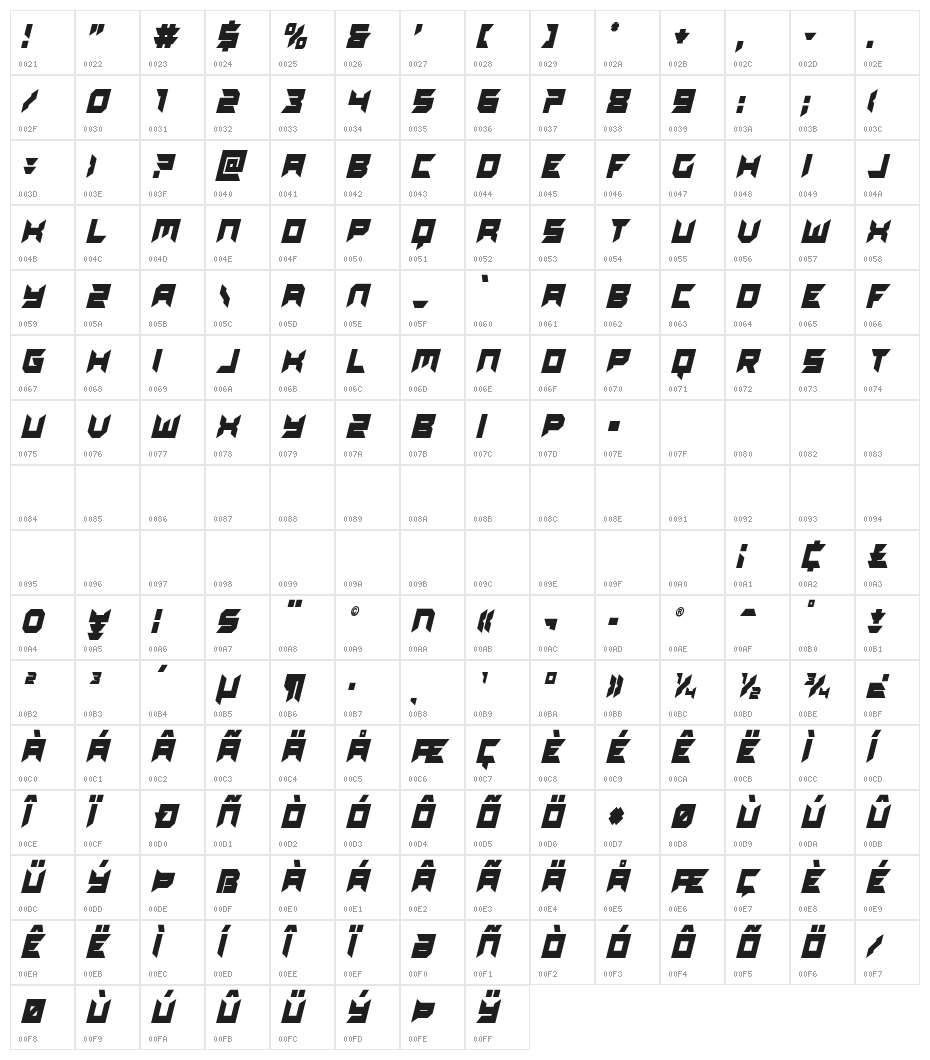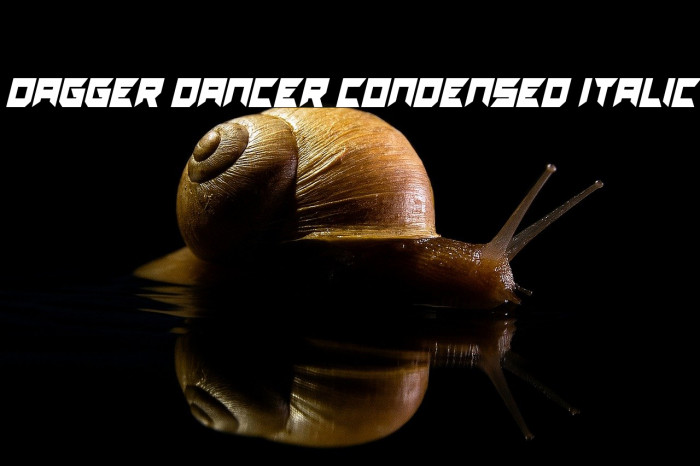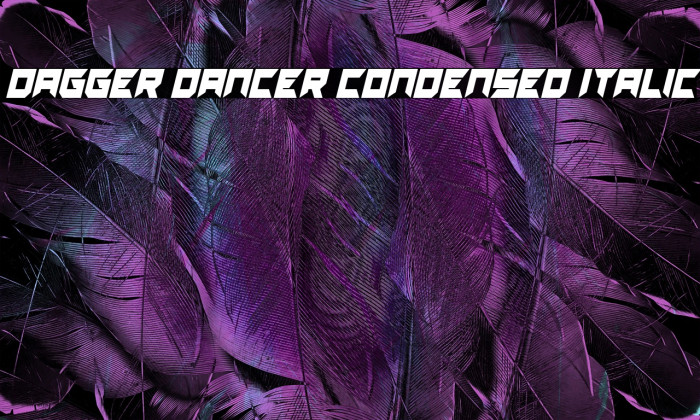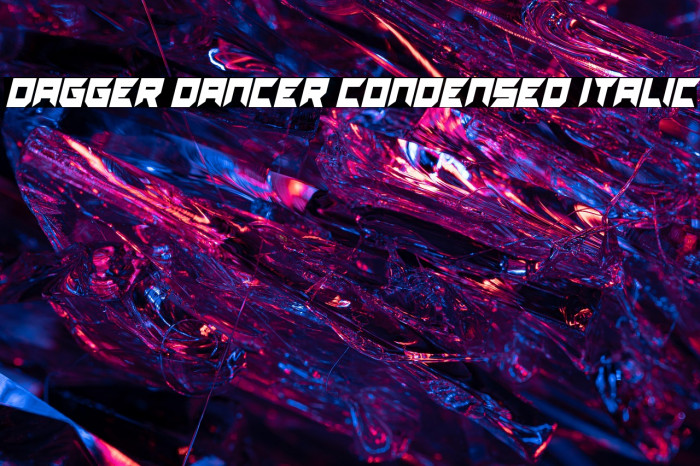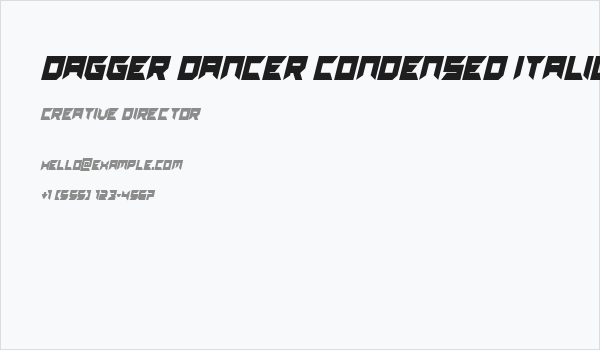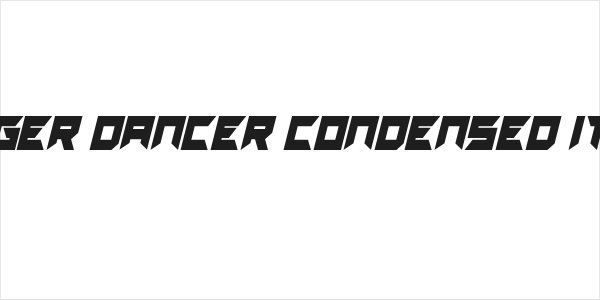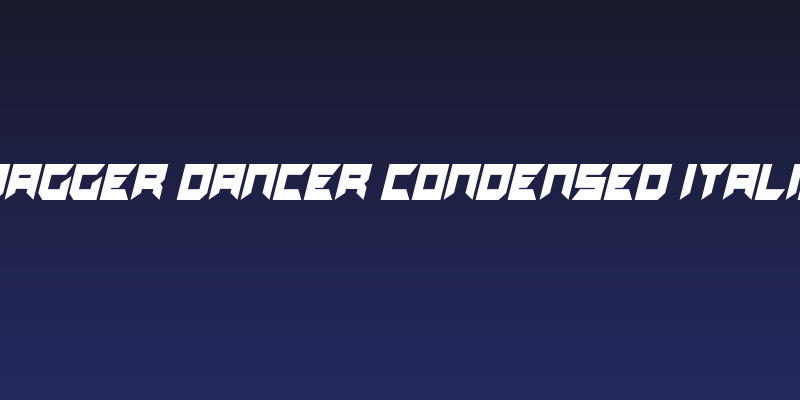
Dagger Dancer Condensed Italic Font
Dagger Dancer Condensed Italic Description
This font features a bold and dynamic style with sharp, angular edges and a distinct italic slant. The condensed form gives it a compact appearance, making it ideal for impactful headlines. The characters are designed with a futuristic and edgy aesthetic, characterized by strong geometric shapes and a sense of movement. The uppercase and lowercase letters maintain a consistent style, while the numerals and special characters complement the overall design. This font's unique style makes it stand out, offering a modern and aggressive look.
| Proposed Projects | Ideal for sci-fi themed designs, video game titles, posters, and branding that requires a modern and edgy look. |